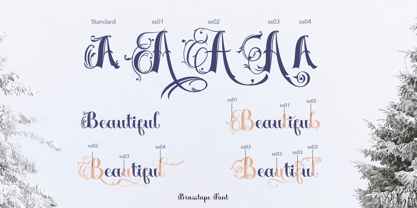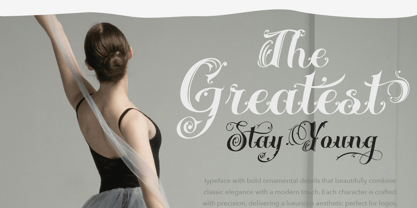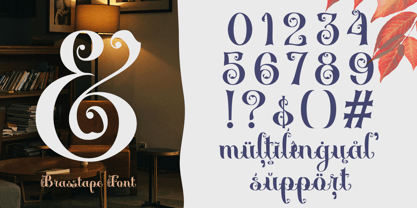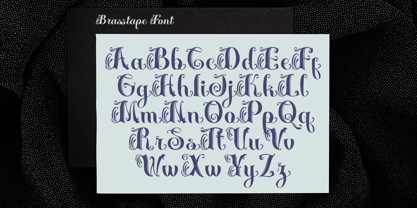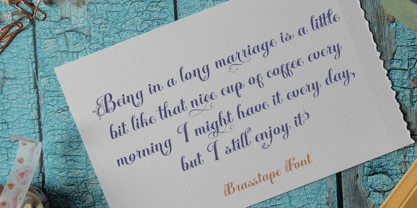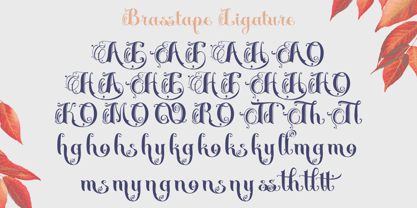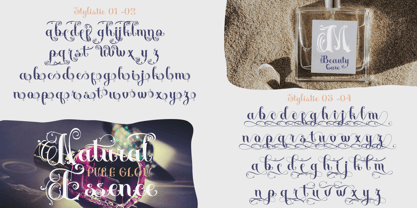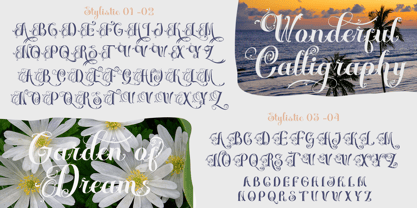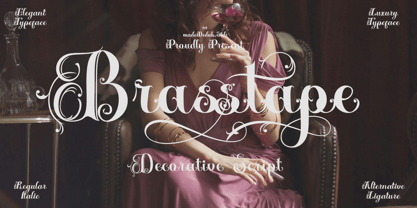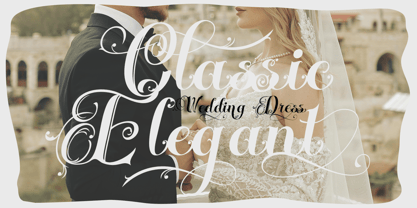
Brasstape
by madeDeduk
The Brasstape Font Family was designed by madededuk and published by madeDeduk. Brasstape contains 2 styles and family package options.
Brasstape is a Decorative script with bold ornamental details that beautifully combine classic elegance with a modern touch. Each character is crafted with precision, delivering a luxurious aesthetic perfect for logos, elegant invitations, premium branding, exclusive packaging, and any design project that seeks a refined, heritage-inspired look. Perfectly suited for branding, logotypes, quotes, labels, social media posts, advertisements, product packaging, logo designs, poster, photography, invitation and more.